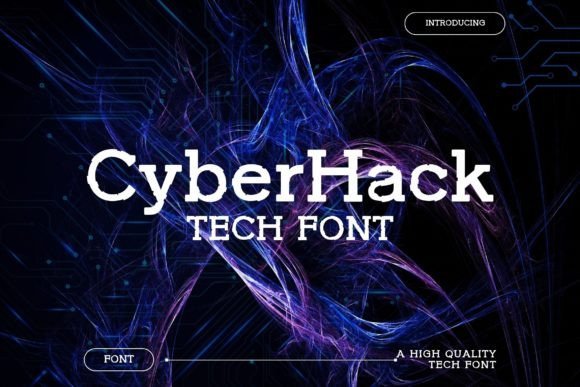
Introduction to Cyberhack Font
CyberHack Tech Font is a cutting-edge, modern font designed to reflect the future of technology.
With its bold, industrial look, CyberHack brings a sense of energy and futuristic innovation to your designs The font’s sharp, clean lines and digital-inspired shapes make it perfect for tech brands, sci-fi posters, video game graphics, and anything that needs a tech-savvy vibe.
Key Features of Cyberhack Font
Why Choose Cyberhack Font?
Cyberhack Font offers exceptional quality and versatility, making it a valuable addition to your design toolkit. Whether you’re creating for personal projects or commercial use, Cyberhack Font delivers professional results.